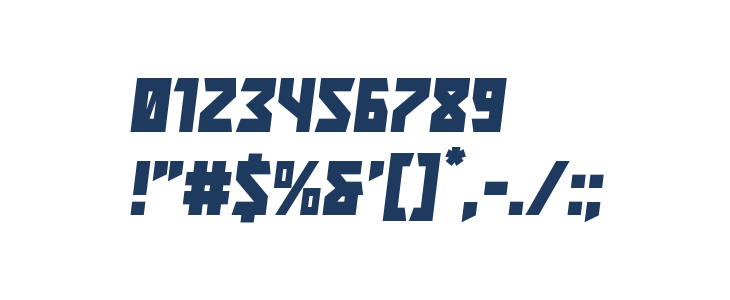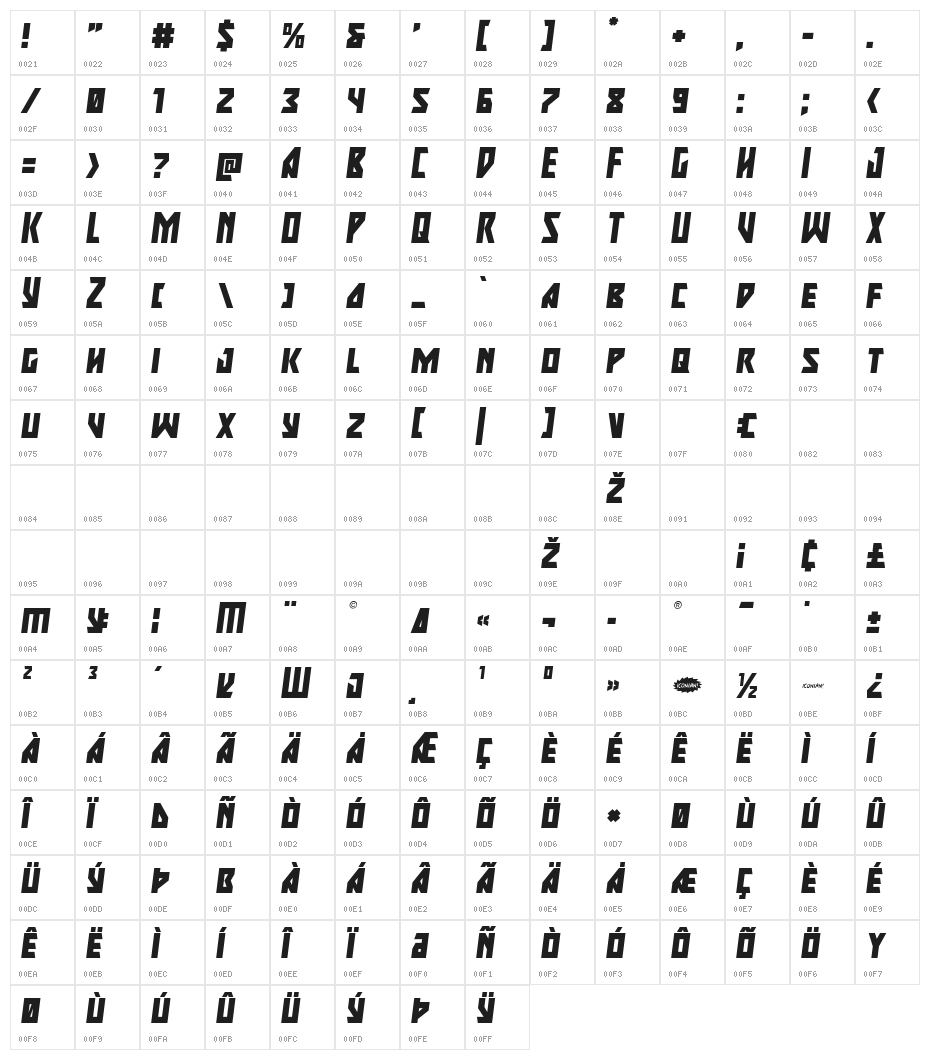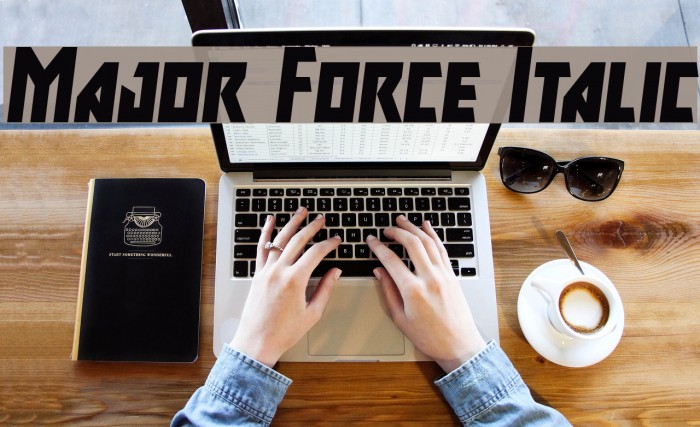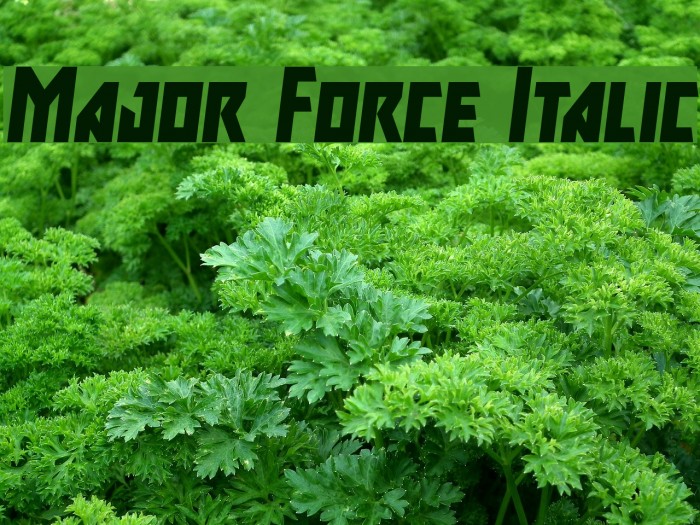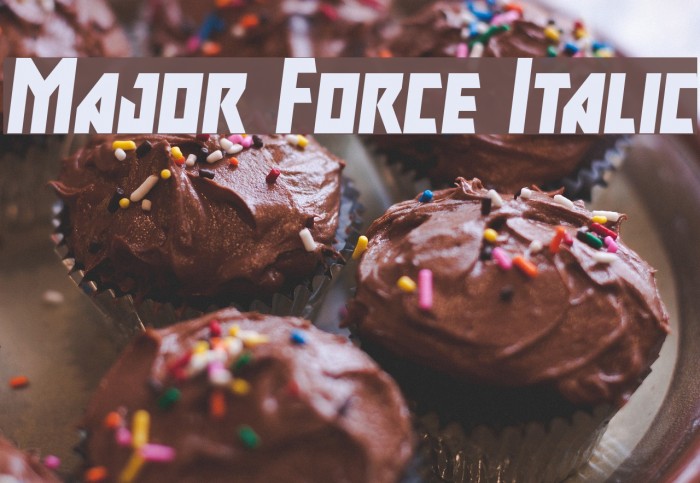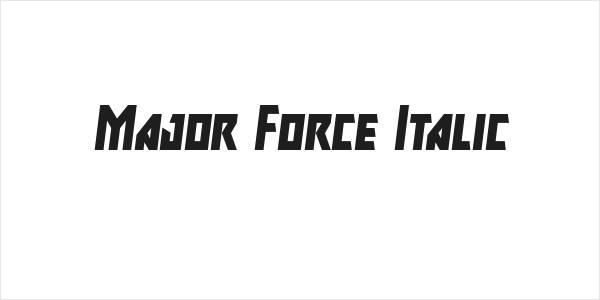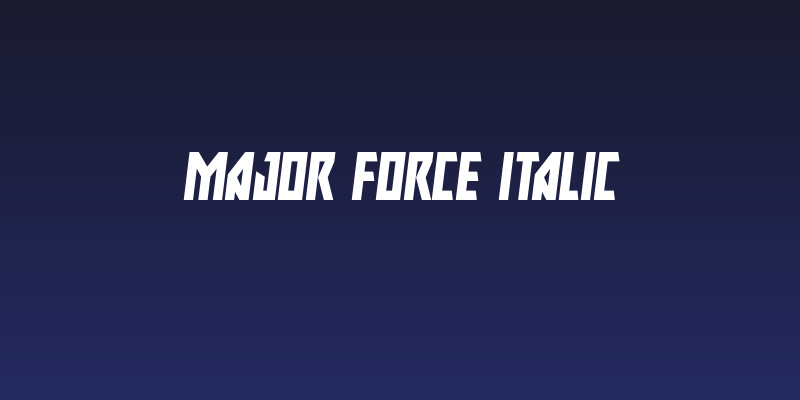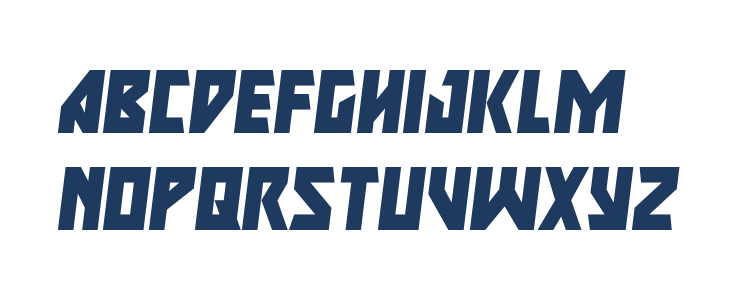
Major Force Italic Font
Major Force Italic Description
This font features a bold and dynamic design with a strong italic slant, giving it a sense of motion and energy. The characters are angular and geometric, with sharp edges and a futuristic appearance. The uppercase and lowercase letters maintain a consistent style, while the numbers and special characters complement the overall aesthetic. The font's boldness and unique style make it stand out, suitable for projects that require a modern and impactful look.
| Proposed Projects | Ideal for sports branding, video game titles, posters, and any project needing a dynamic and modern typeface. |